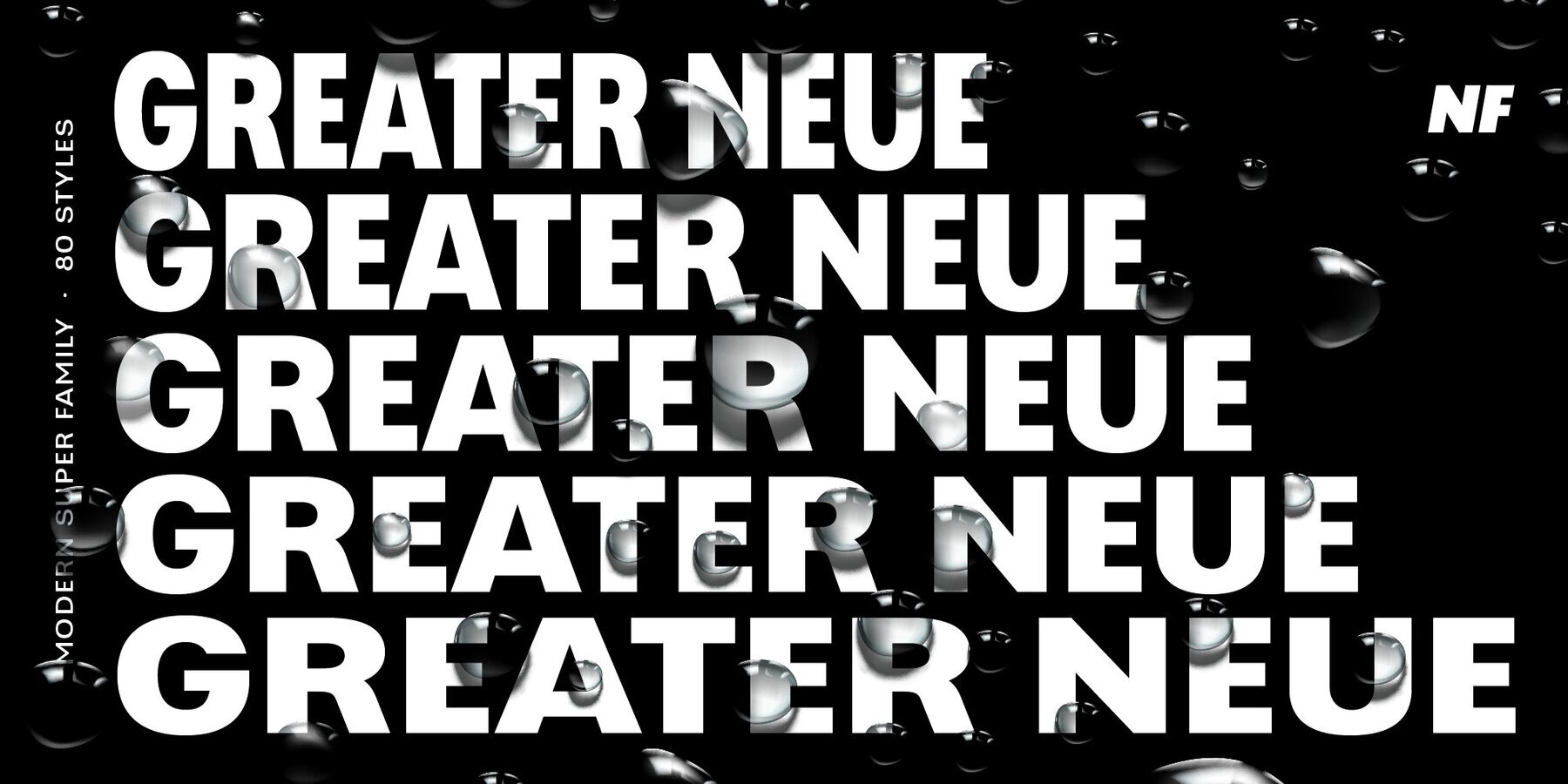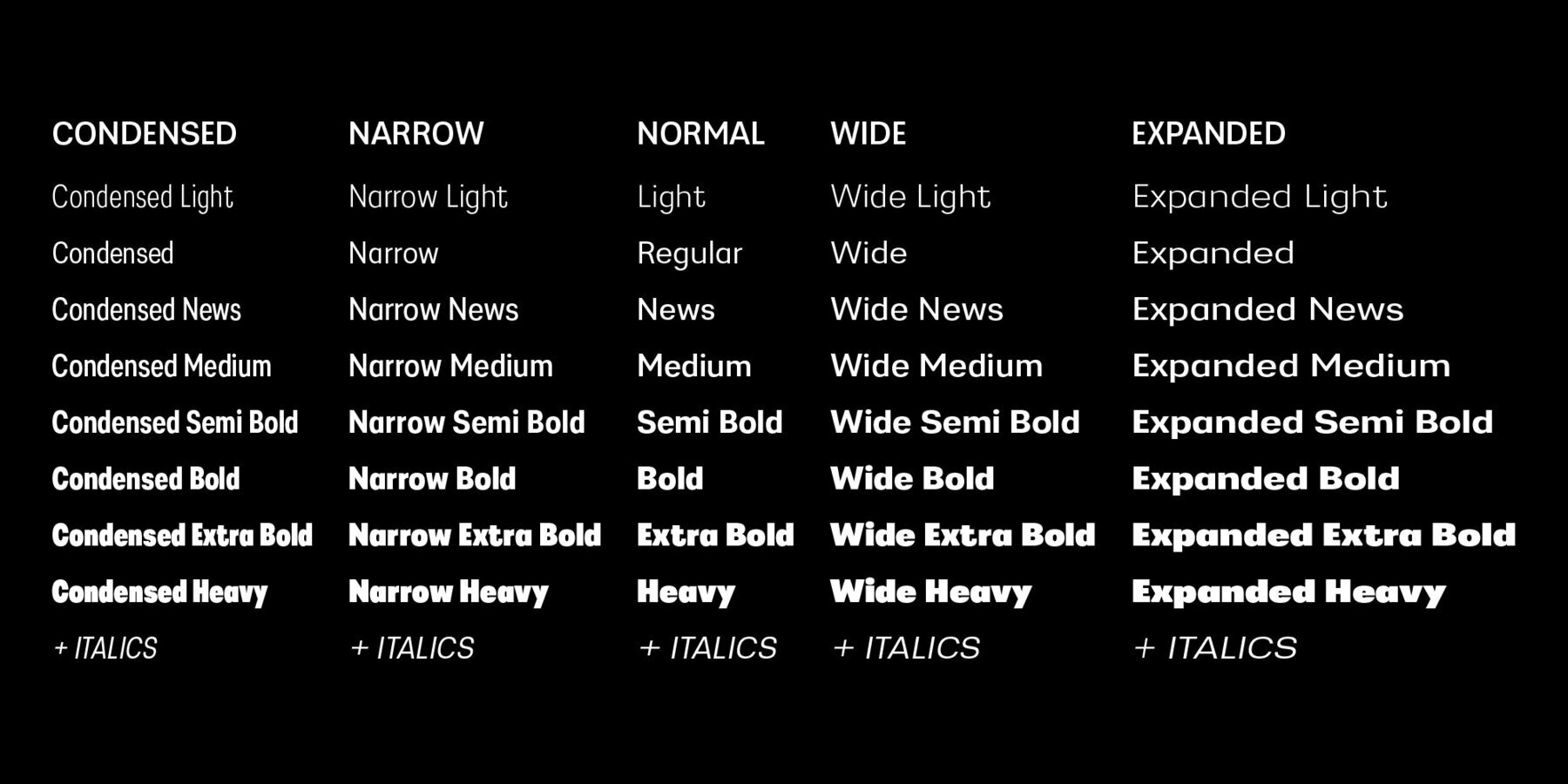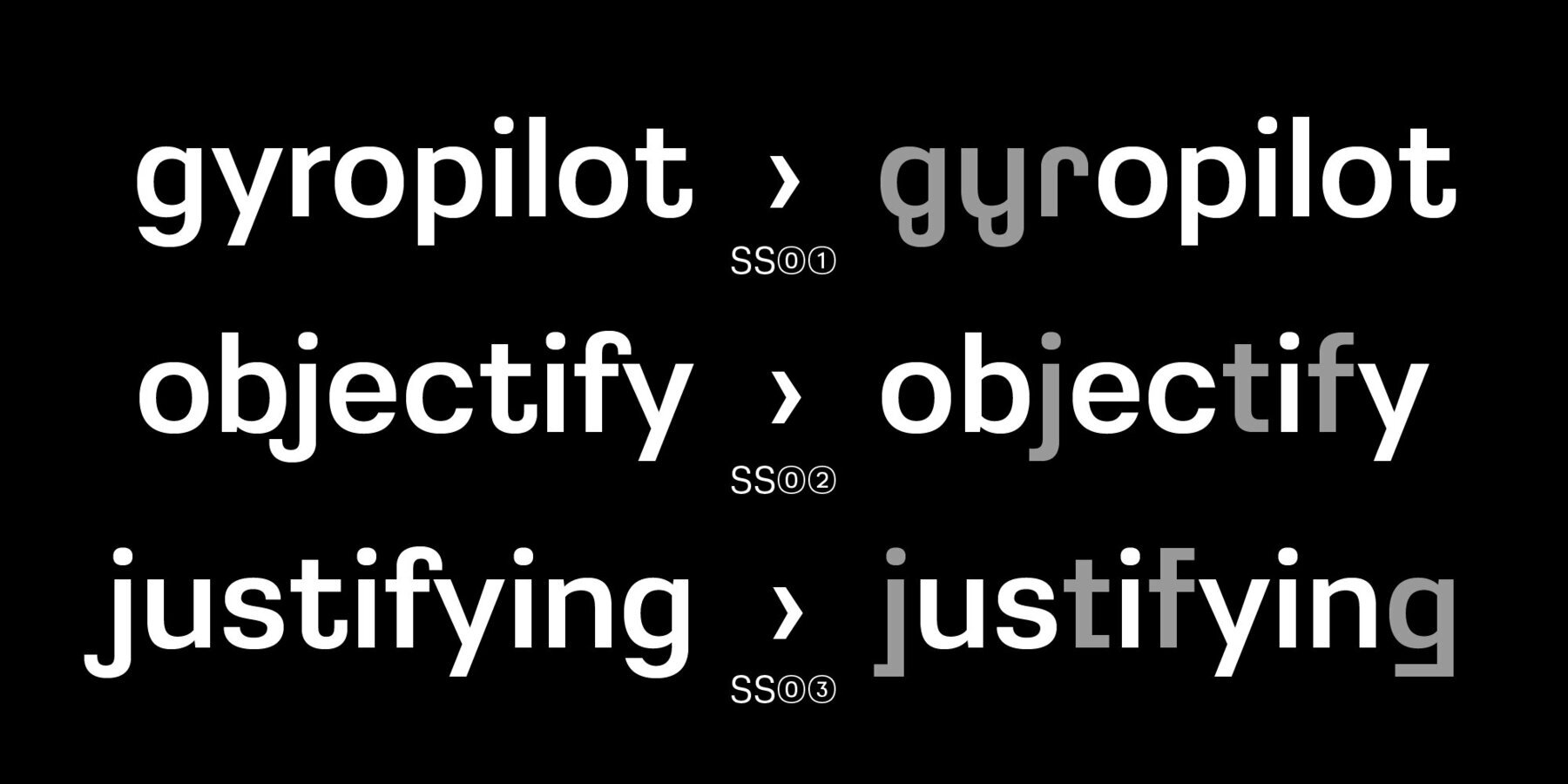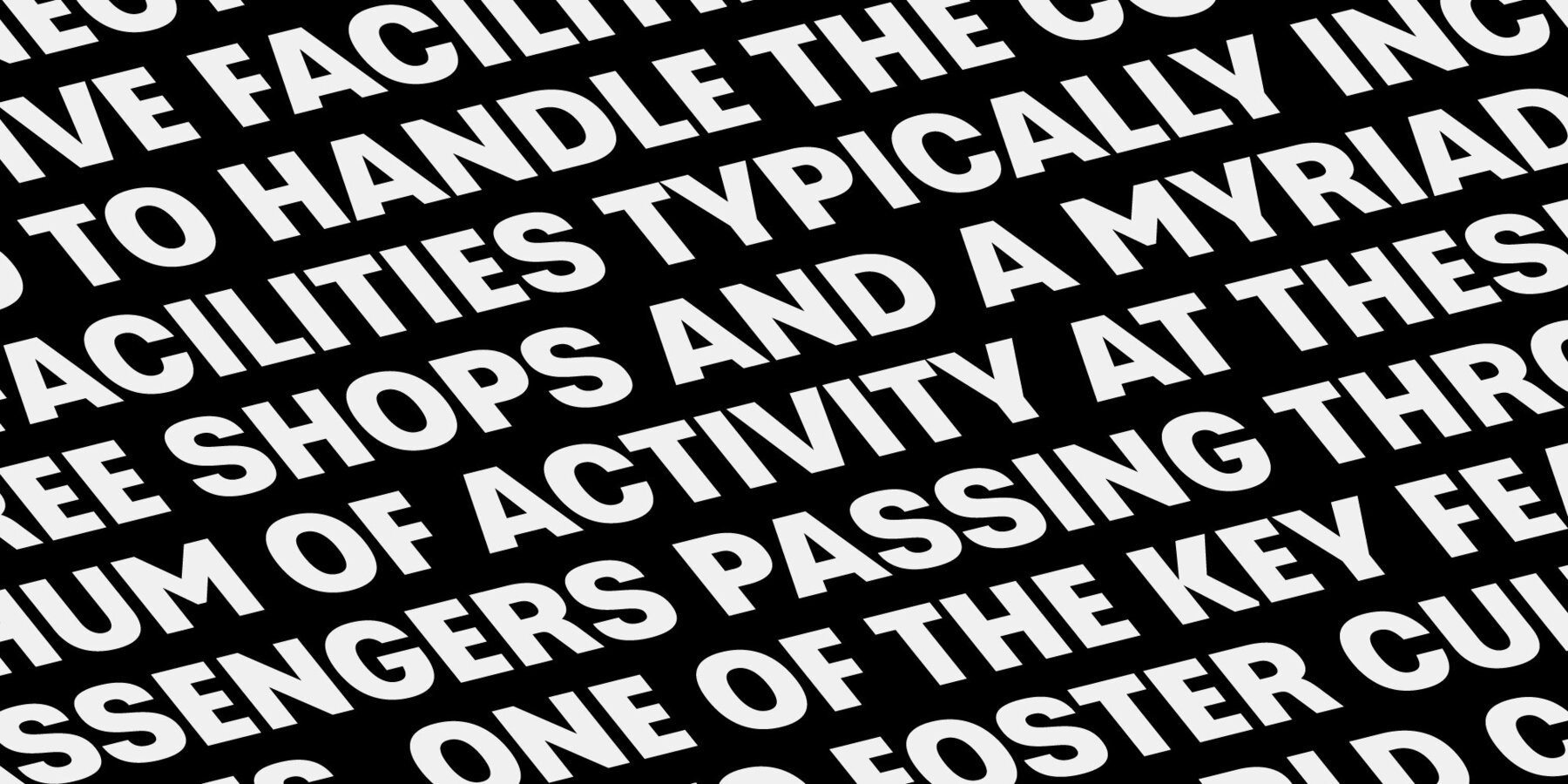
Greater Neue Font
The Greater Neue font family is a modern collection consisting of 80 weights, 40 uprights, and matching italics. It is perfect for packaging,advertisements, headlines, and corporate identities. This font family is well-suited for graphic design and any type of display use.
Savchuk Mykola began his career as a graphic designer. Over time, he had a desire to create a font that would reflect his view of typography. ‘They say that all ingenious things are simple, although unique. In my future projects, I want to reflect simplicity on the one hand and uniqueness on the other, providi...